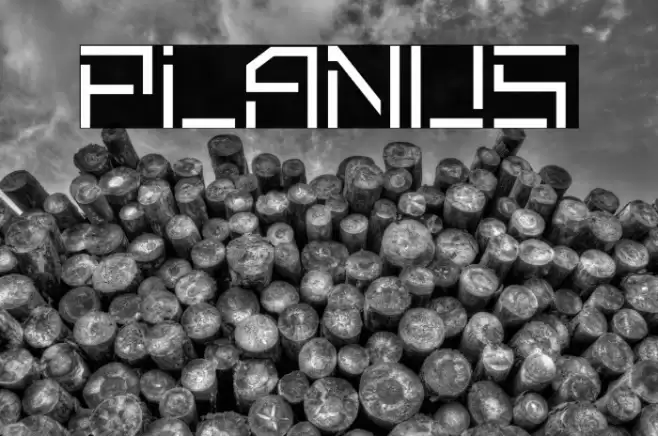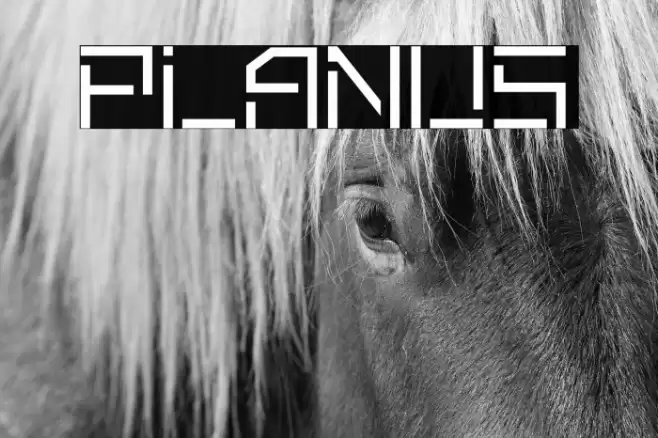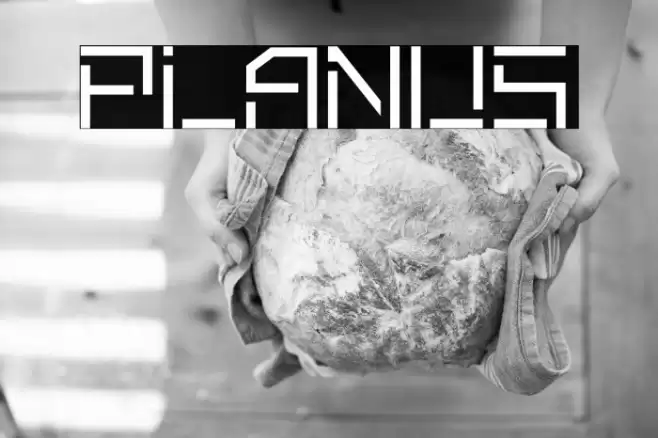
Planus Font
Planus Description
This font features a geometric and futuristic design, characterized by its angular and segmented letterforms. Each character is constructed with a series of straight lines and sharp angles, giving it a digital and mechanical appearance. The uniformity in stroke width across all characters contributes to a cohesive and structured look. This font's unique style is reminiscent of digital displays or technical schematics, making it stand out with its modern and innovative aesthetic.
A geometric, futuristic font with angular, segmented letterforms from Regular fonts.
- Proposed Projects: Ideal for tech-related branding, digital interfaces, video game titles, and futuristic-themed posters.